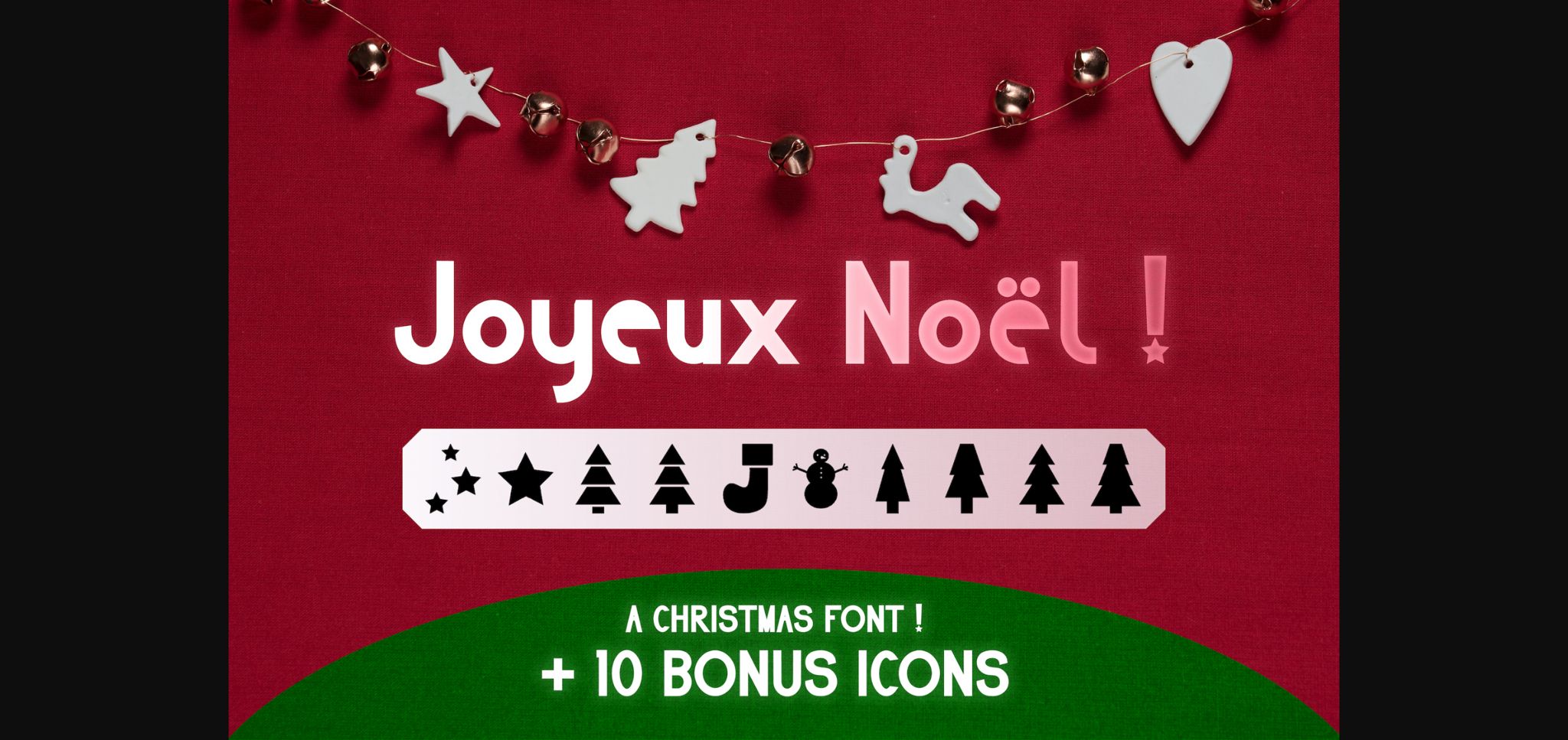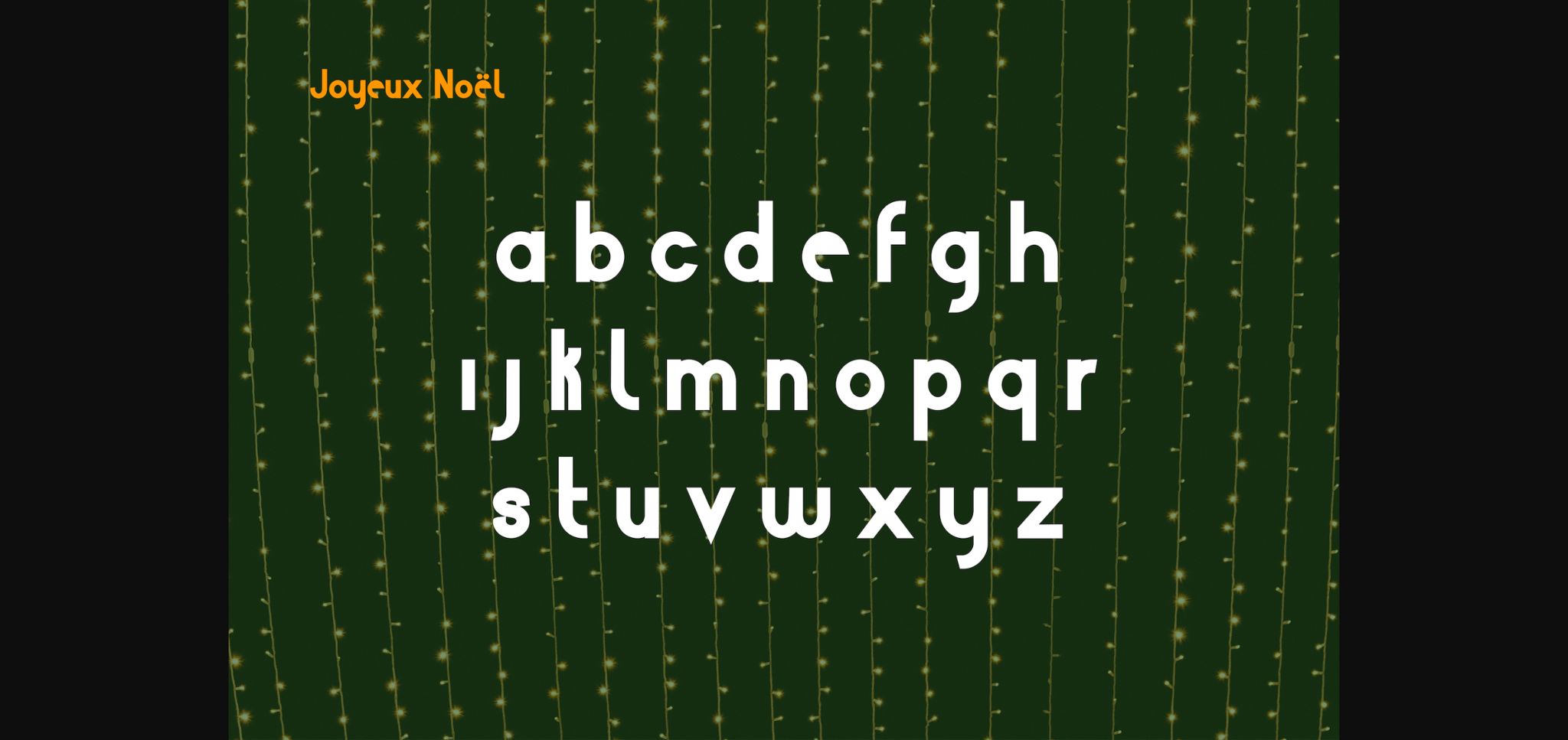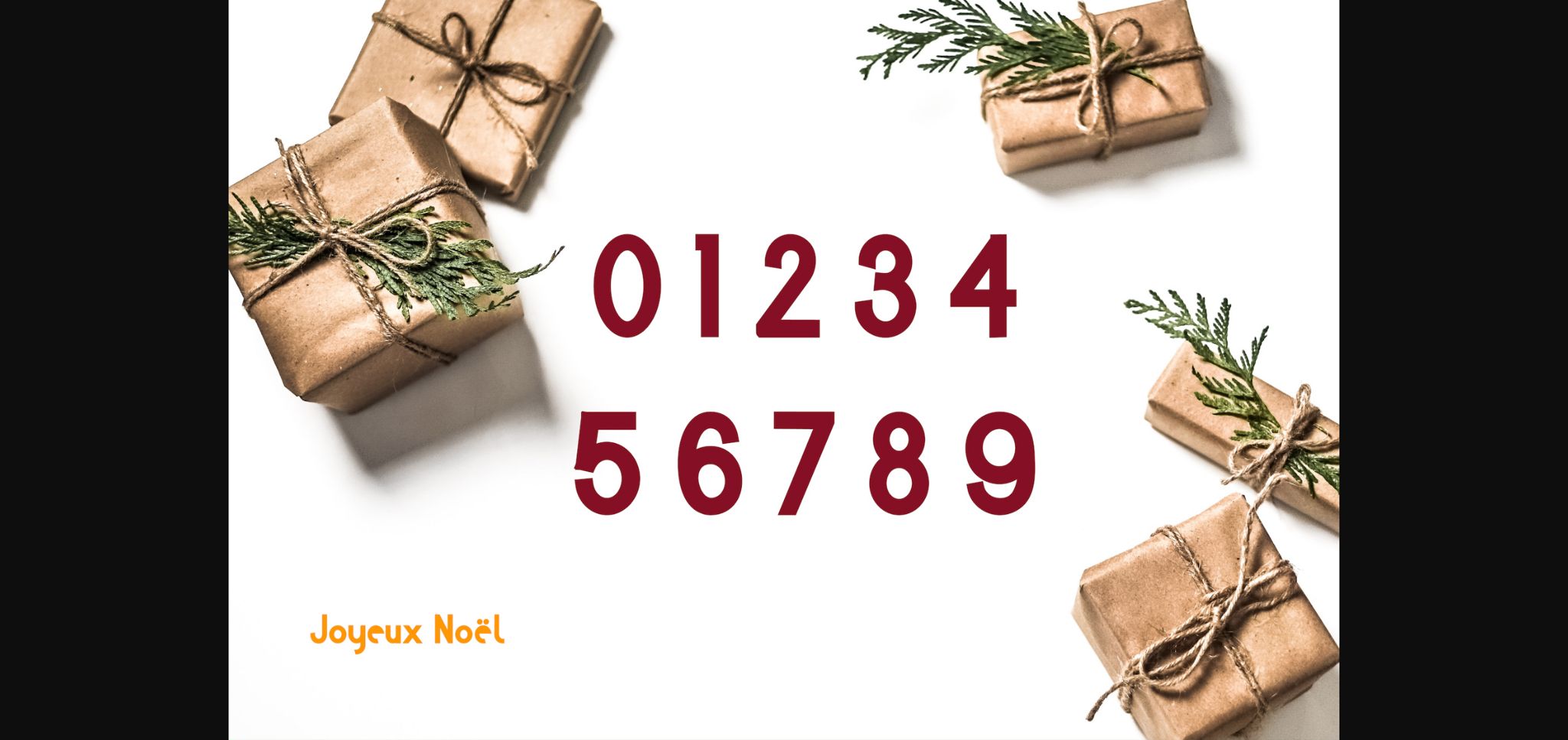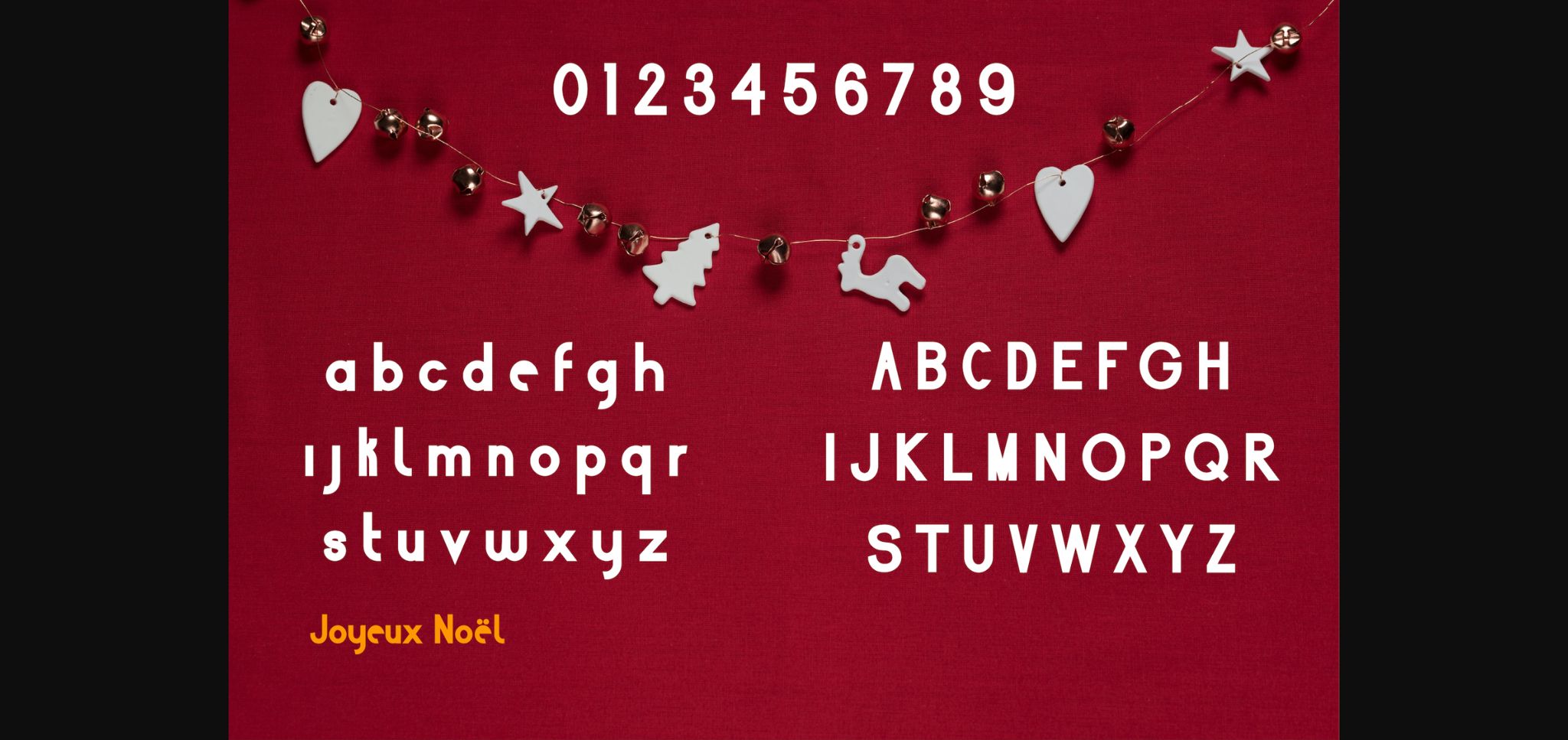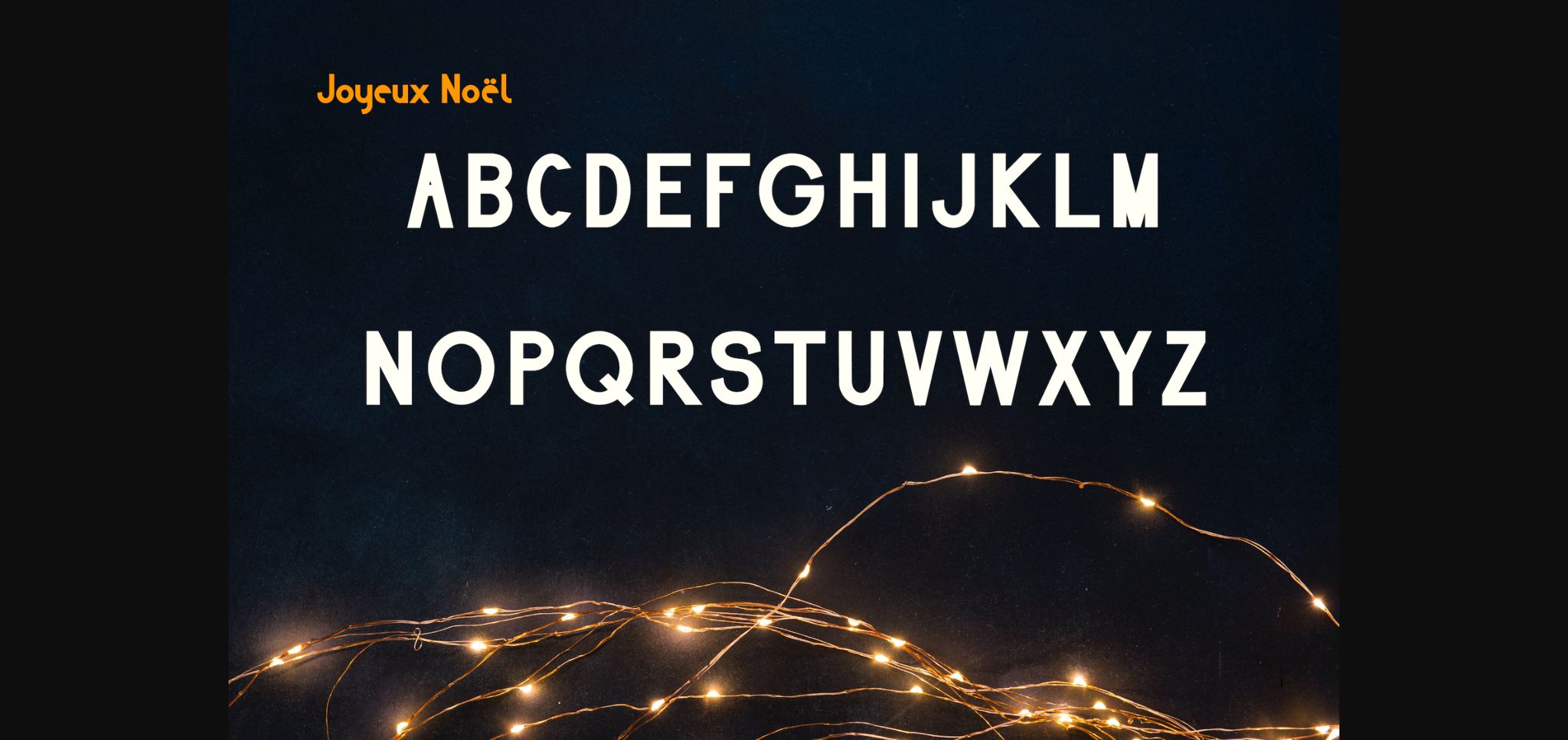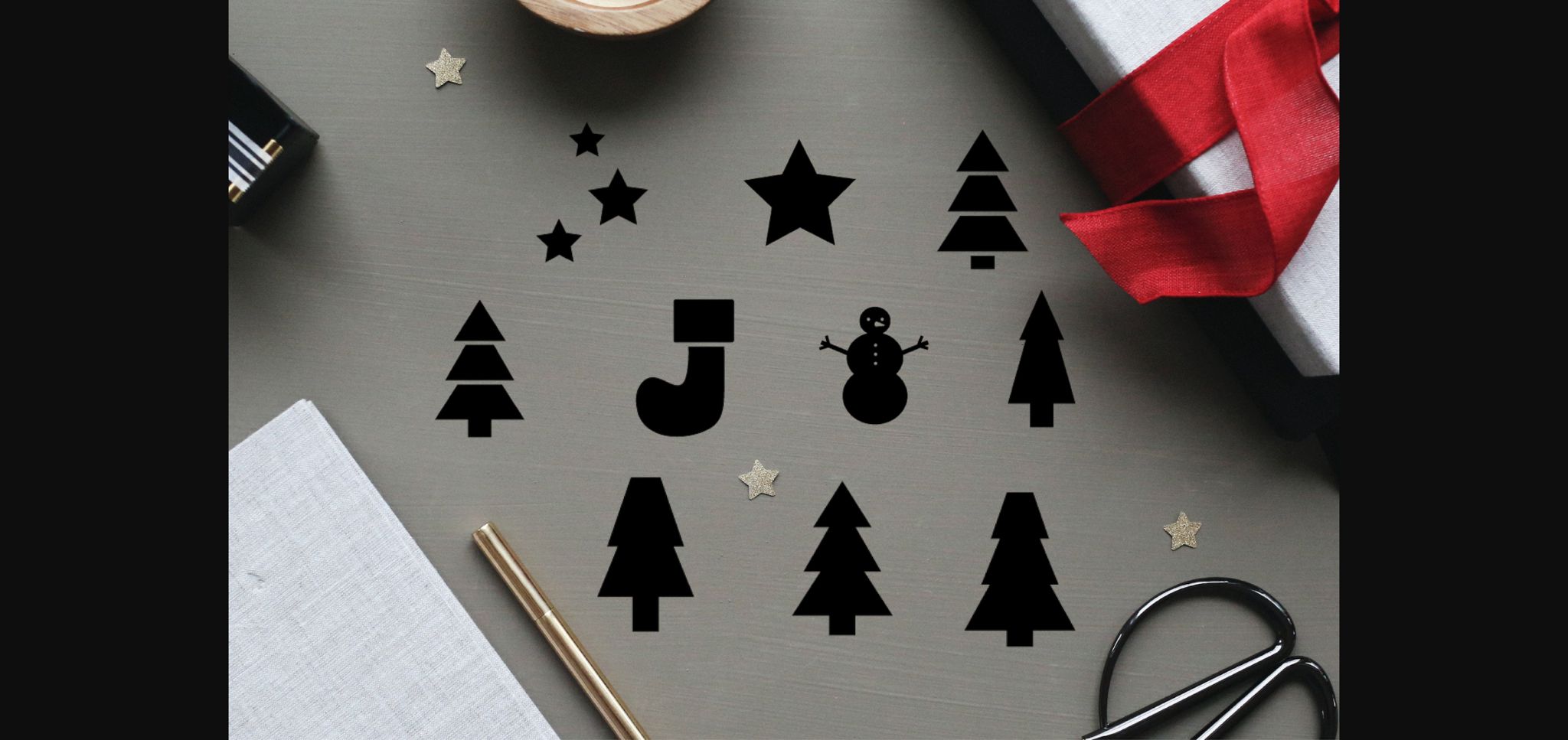
HomeSans Serif FontsJoyeux Noël Font Sans Serif Fonts Joyeux Noël Font FacebookXPinterestWhatsApp 1 of 8 ... Joyeux Noël Font Poster 2... Joyeux Noël Font Poster 3... Joyeux Noël Font Poster 4... Joyeux Noël Font Poster 5... Joyeux Noël Font Poster 6... Joyeux Noël Font Poster 7... Joyeux Noël Font Poster 8... About Joyeux Noël Font Joyeux Noël is the perfect sans serif font for your Christmas list! It can easily be matched to an incredibly large set of projects, so add it to your creative ideas and notice how it makes them stand out! DOWNLOAD NOW People also explored Army Bella Canvas 3001 T Shirt Mockup Mandala Font Alivia Font Mr. D Font Dandelion Font Jackie Font Dreaming Font Buhary Font Kayee Brush Font 589 0 TagsJoyeux Noël Font Previous articleStream FontNext articleStay at Home Font LEAVE A REPLY Cancel reply Comment: Please enter your comment! Name:* Please enter your name here Email:* You have entered an incorrect email address! Please enter your email address here Website: Save my name, email, and website in this browser for the next time I comment. Personal Use Free Luxima Personal Use Free Read more about this font Boston Traffic Personal Use Free Read more about this font Retro Poster Personal Use Free Read more about this font Bulky Personal Use Free Read more about this font BLOG 5 Fonts That Will Dominate Design Trends in 2026 5 Fonts for 2026 That Will Dominate Design Trends Typography plays a critical role in visual communication, and as we look ahead to 2026, it’s... Fonts That Capture the Spirit of New York City How to Install and Use Fonts on Windows, macOS, and Web Projects Best Fonts for T-Shirt Design – Top 2025 Picks